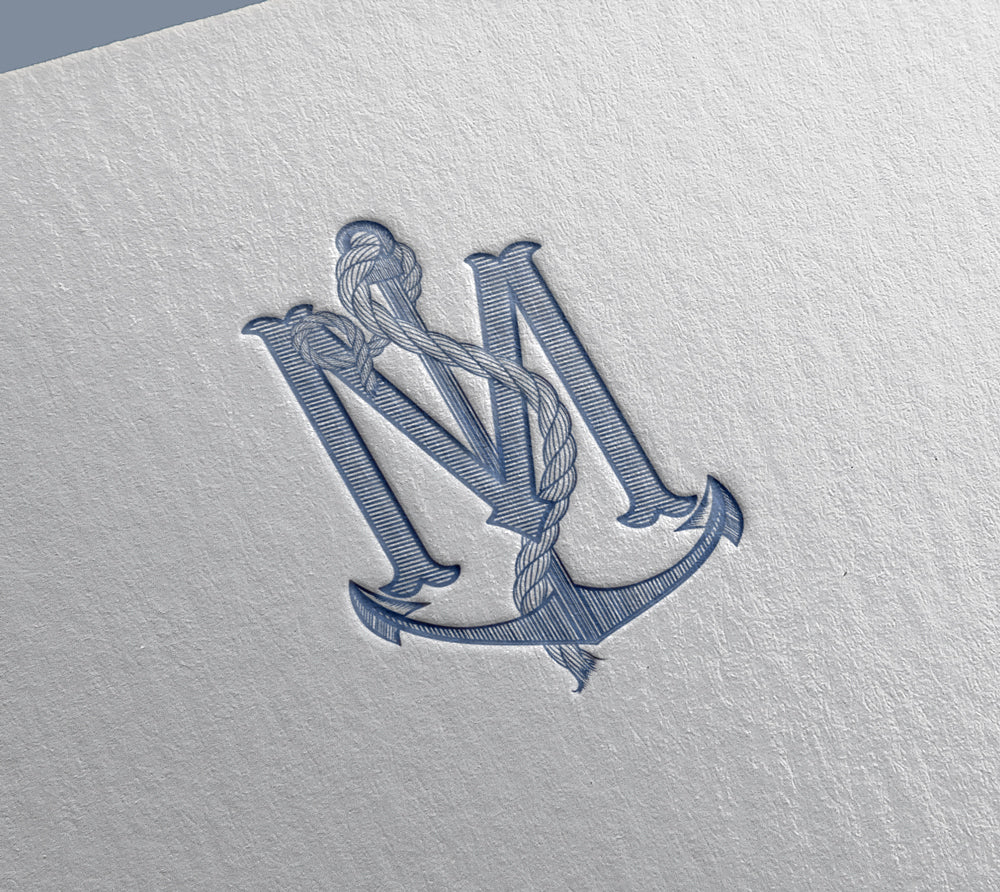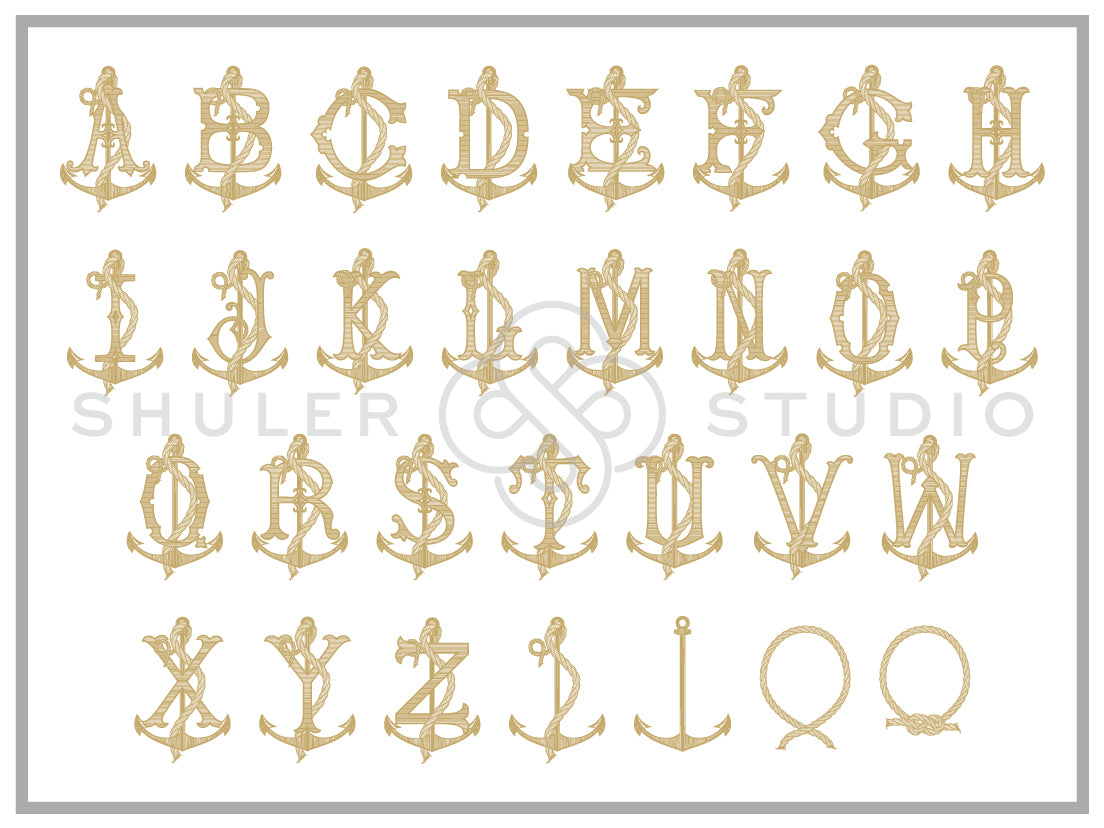
Single Nautical Font for Print
Our Single Nautical is a summertime favorite! This collection consists of 26 detailed letters featuring an anchor and rope motif plus a bonus of 4 nautical accessories.